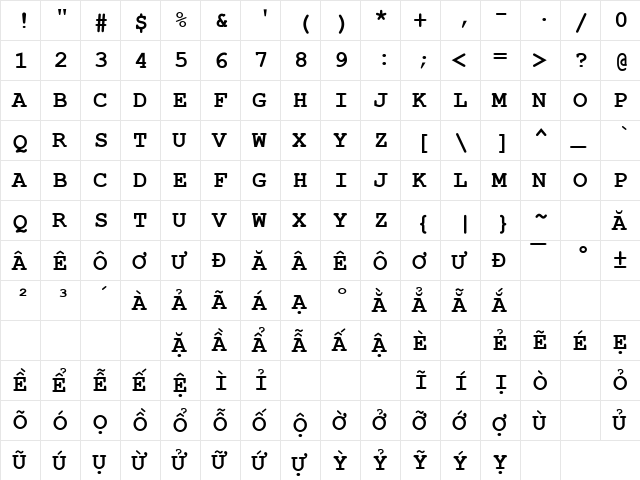
.VnCourier NewH Bold
Design Context for .VnCourier NewH Typeface
.VnCourier NewH uses fixed-width spacing throughout, giving it the structured, systematic character associated with coding environments and technical documentation. The heavy weight commands attention and anchors typographic hierarchies.
Pro Tip: Use .VnCourier NewH with slightly increased line-height for extended reading — fixed-width spacing can feel dense in longer passages without extra breathing room.